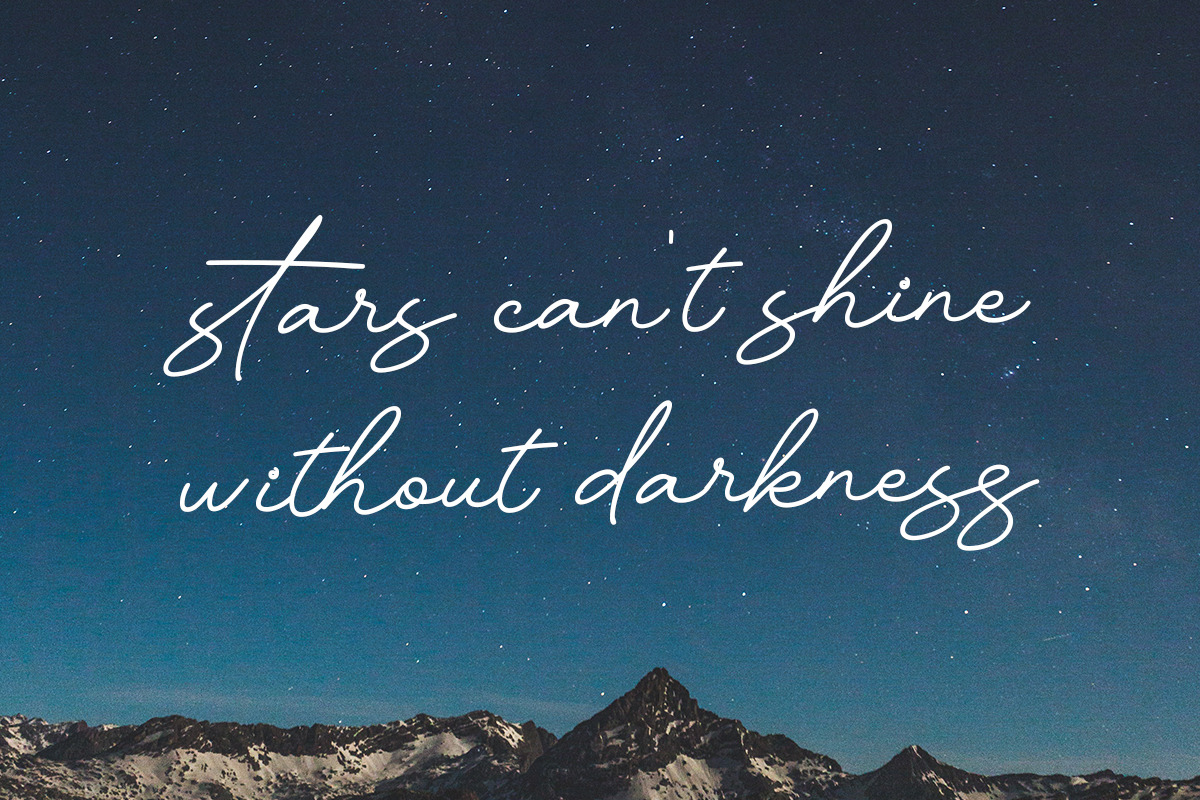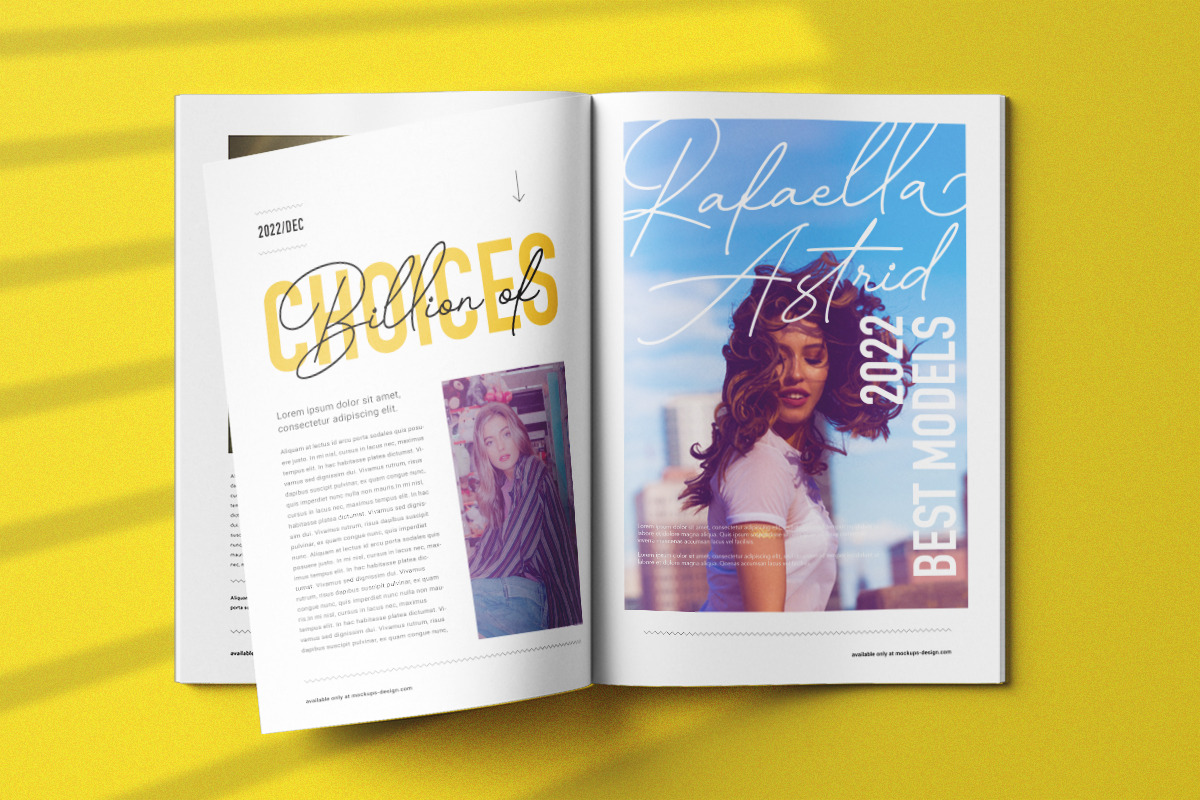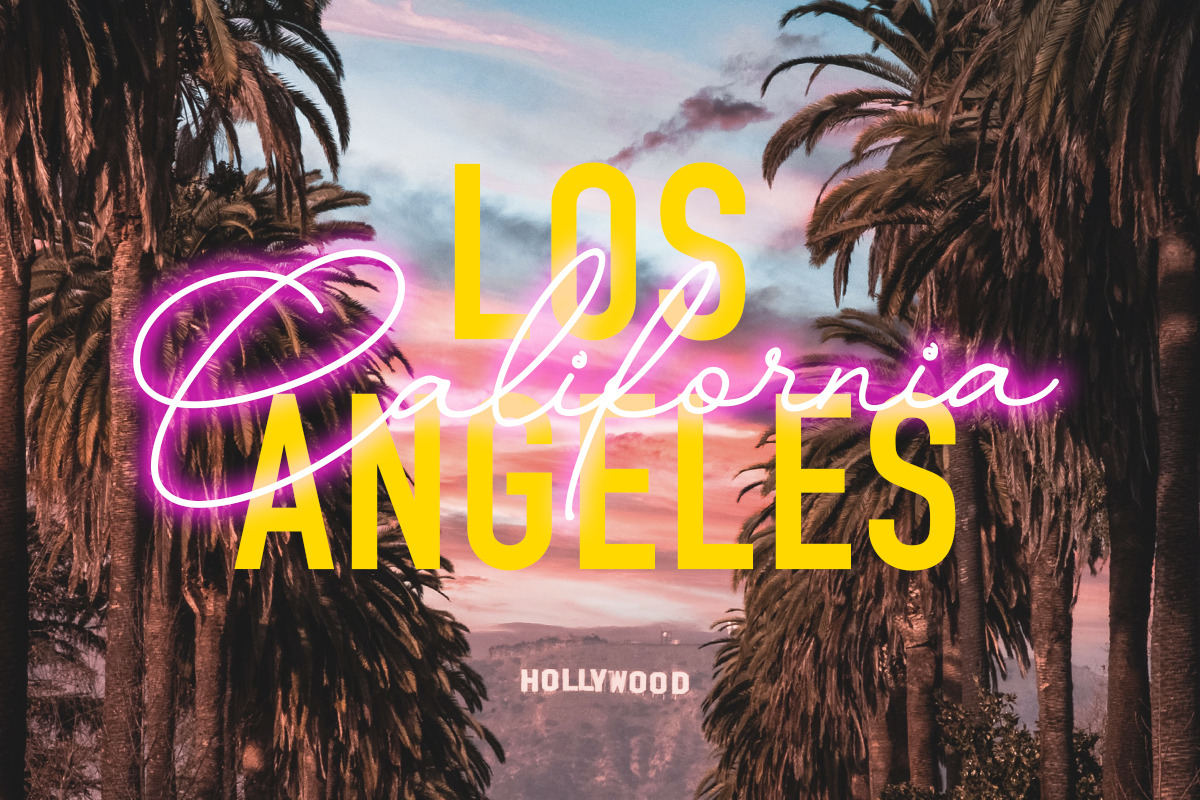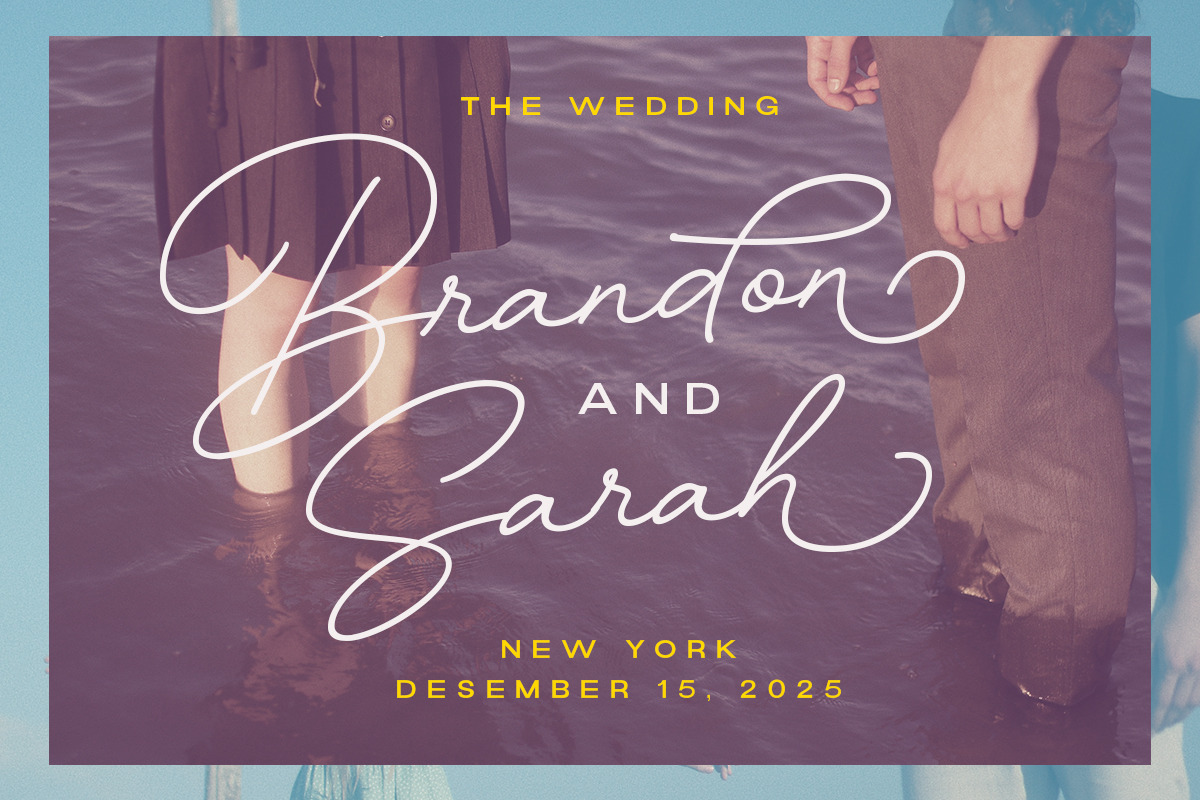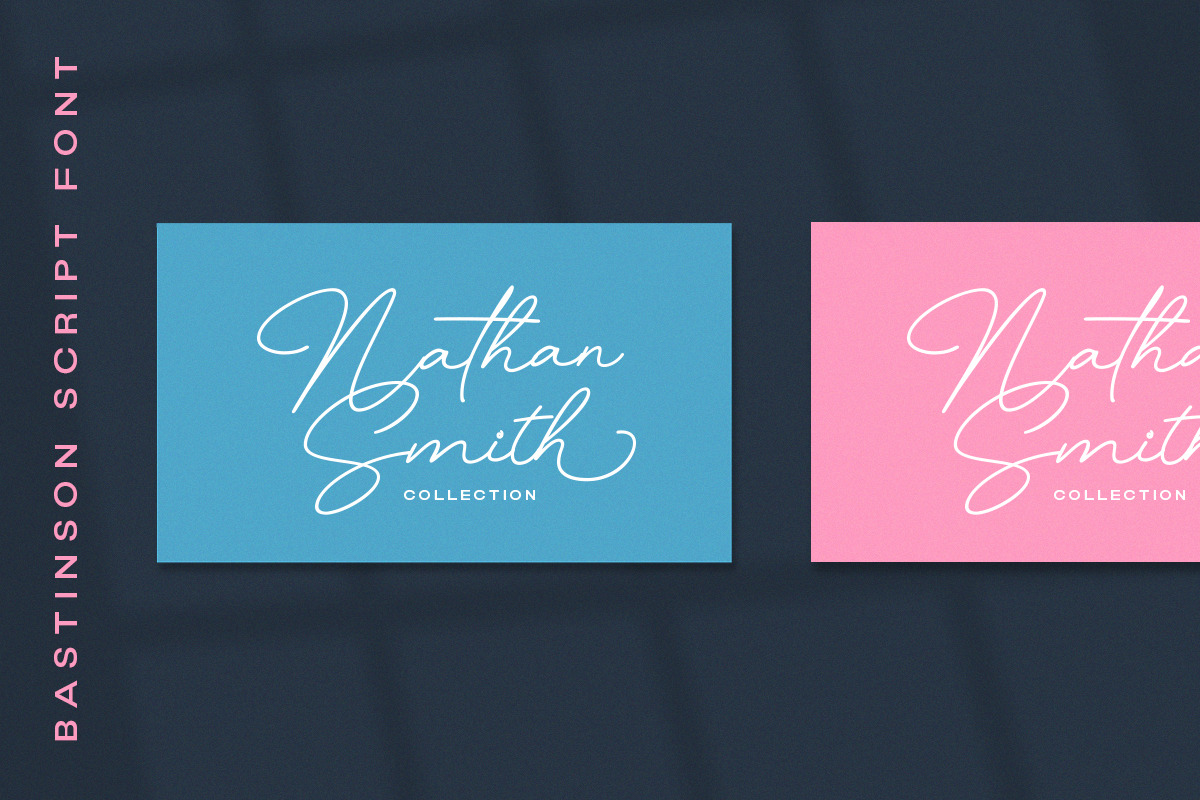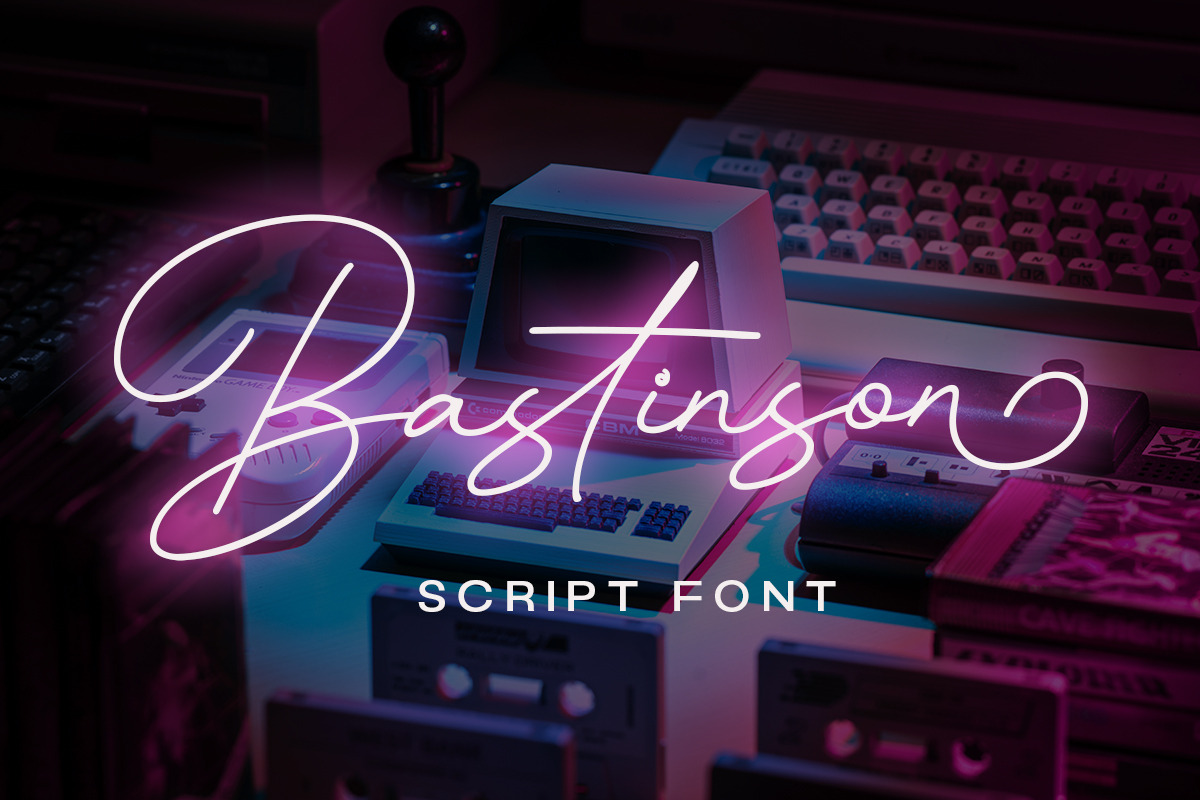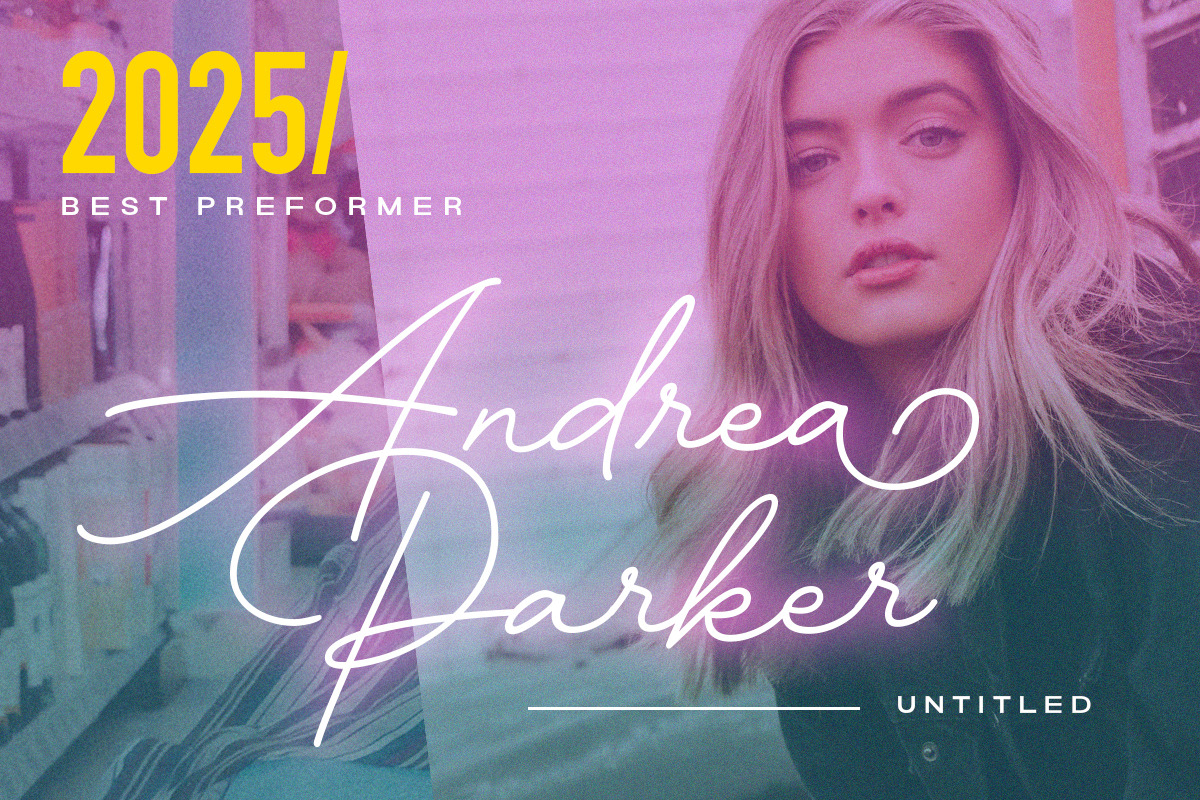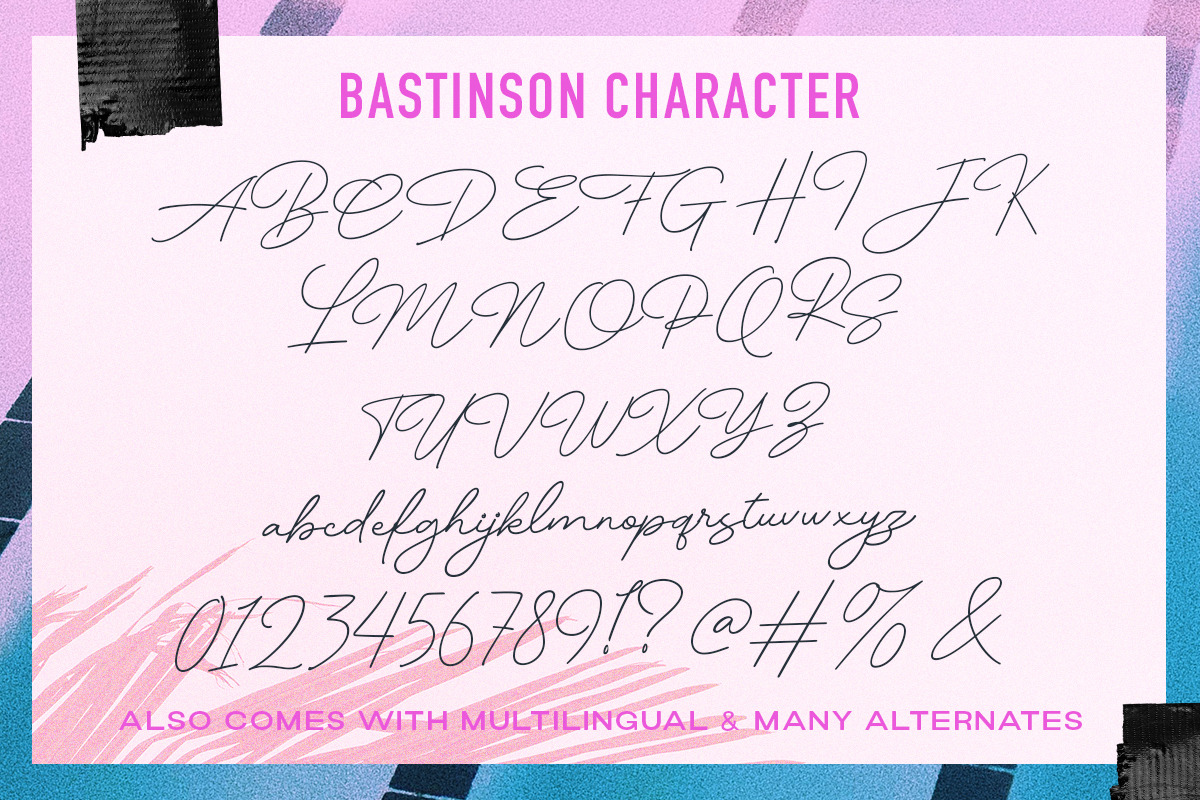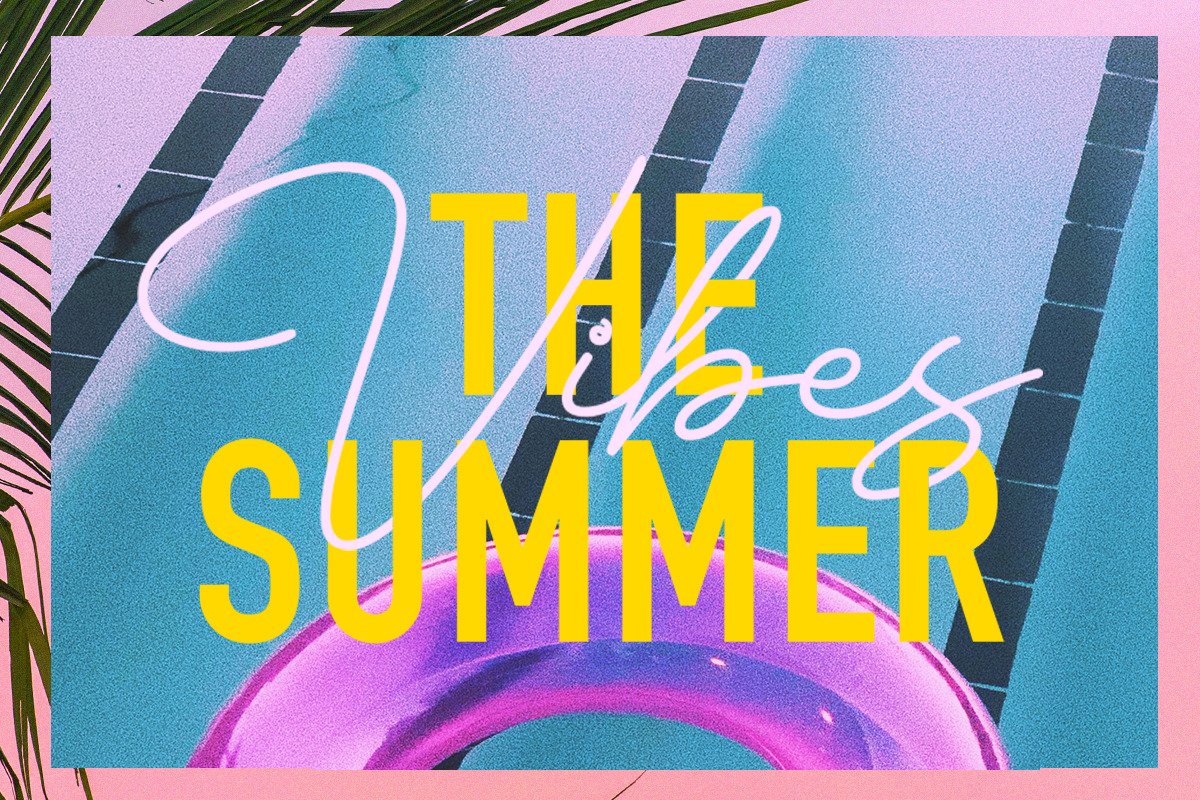
Bastinson - Monoline Script Font
Bastinson is a monoline script with a touch of retro look and feel. Looks great to be paired with bold consendsed sans serif typeface. This type of font perfectly made to be applied especially in logo, headline, signage and the other various formal forms such as invitations, labels, logos, magazines, books, greeting / wedding cards, packaging, fashion, make up, stationery, novels, labels or any type of advertising purpose.
- alternates / swashes and ligatures